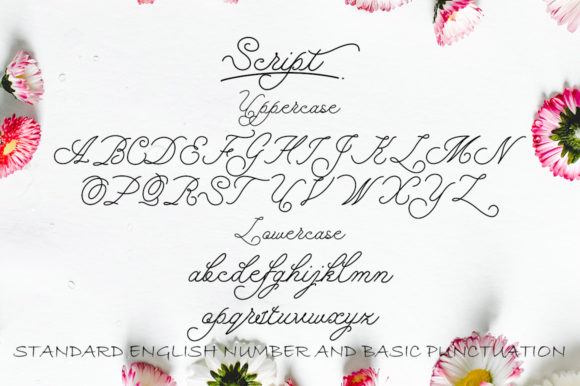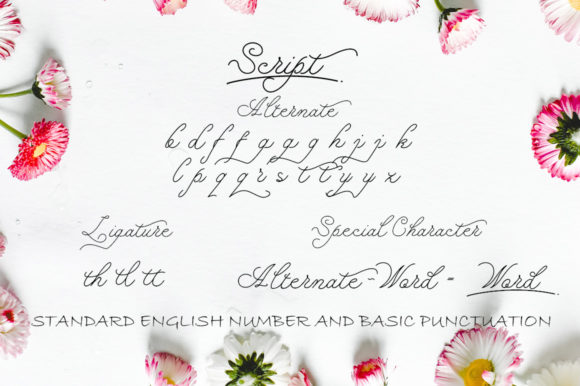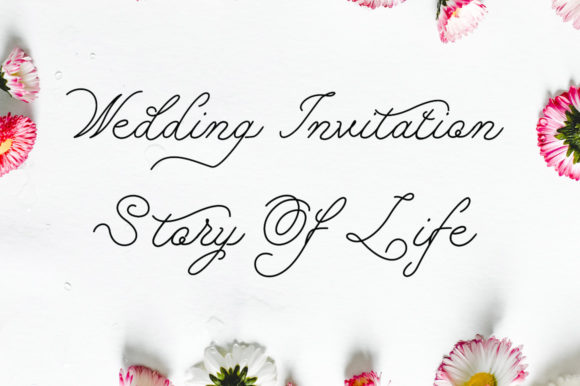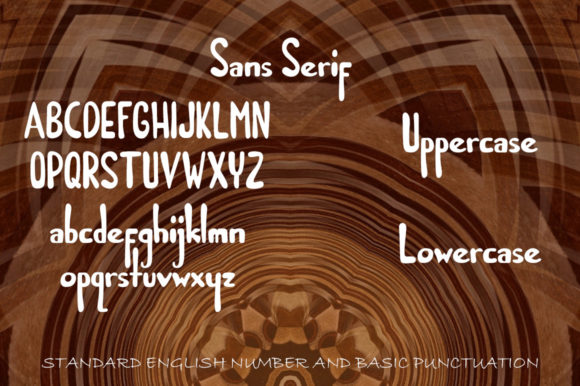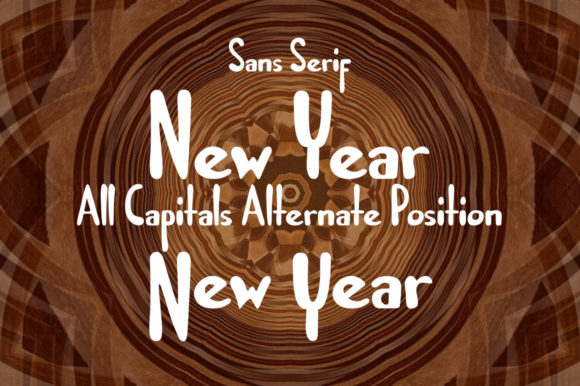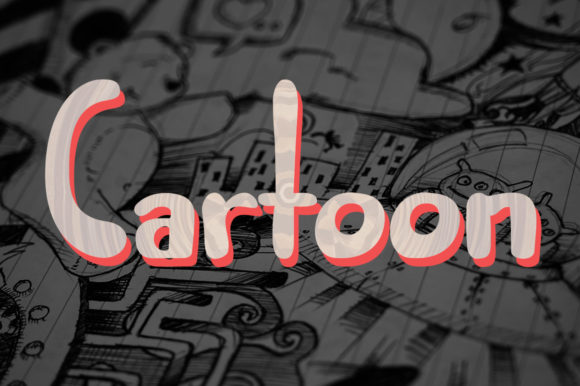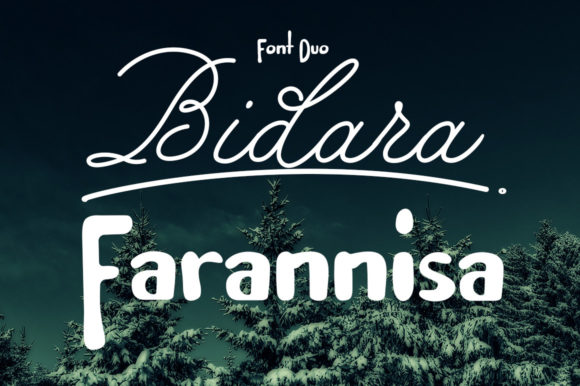
Introducing Bidara Farannisa Font: The Ultimate Duo for Creative Projects
Are you tired of using the same old fonts for your creative projects? Look no further! Bidara Farannisa Font is here to revolutionize your design game with its playful and modern script and sans serif duo. This versatile font is perfect for traditional media, the web, and more, making it an essential addition to your font collection.
The Perfect Combination: Script and Sans Serif
Bidara Farannisa Font is a unique duo font that combines the elegance of a script font with the simplicity of a sans serif font. The script font is perfect for adding a touch of sophistication and personality to your designs, while the sans serif font provides a clean and modern look. This combination makes Bidara Farannisa Font suitable for a wide range of projects, from branding and advertising to packaging and digital media.
Key Features of Bidara Farannisa Font
• Playful and Modern Design: Bidara Farannisa Font boasts a fresh and contemporary design that is sure to grab attention.
• Versatile and Adaptable: This font duo can be used for various projects, including traditional media, web design, and more.
• Script and Sans Serif Combination: The perfect pairing of script and sans serif fonts for a unique and stylish look.
• Ease of Use: Bidara Farannisa Font is easy to read and works well in both digital and print formats.
Why Choose Bidara Farannisa Font?
With Bidara Farannisa Font, you can add a touch of elegance and sophistication to your designs. Its versatility and adaptability make it an excellent choice for designers and crafters who want to create unique and eye-catching projects. Here are a few reasons why you should consider adding Bidara Farannisa Font to your collection:
• Stand Out from the Crowd: With Bidara Farannisa Font, you can create designs that are truly one-of-a-kind and attention-grabbing.
• Enhance Your Brand: Use Bidara Farannisa Font to create a consistent brand image that reflects your style and personality.
• Easy to Pair: This font duo pairs well with other fonts, making it easy to mix and match for a unique look.
Use Cases for Bidara Farannisa Font
Bidara Farannisa Font is perfect for a wide range of projects, including:
• Branding and Advertising: Create eye-catching logos, posters, and advertisements with Bidara Farannisa Font.
• Digital Media: Use Bidara Farannisa Font for social media graphics, blog posts, and website designs.
• Packaging and Product Design: Add a touch of elegance to your product packaging with Bidara Farannisa Font.
• Crafting and DIY Projects: Use Bidara Farannisa Font for crafting and DIY projects, such as making cards, gift tags, and more.
In conclusion, Bidara Farannisa Font is a versatile and modern script and sans serif duo font that is perfect for creative projects. Its playful design, ease of use, and adaptability make it an excellent addition to any font collection. Whether you’re a designer, crafter, or DIY enthusiast, Bidara Farannisa Font is sure to become a favorite. So why wait? Add Bidara Farannisa Font to your collection today and take your designs to the next level!